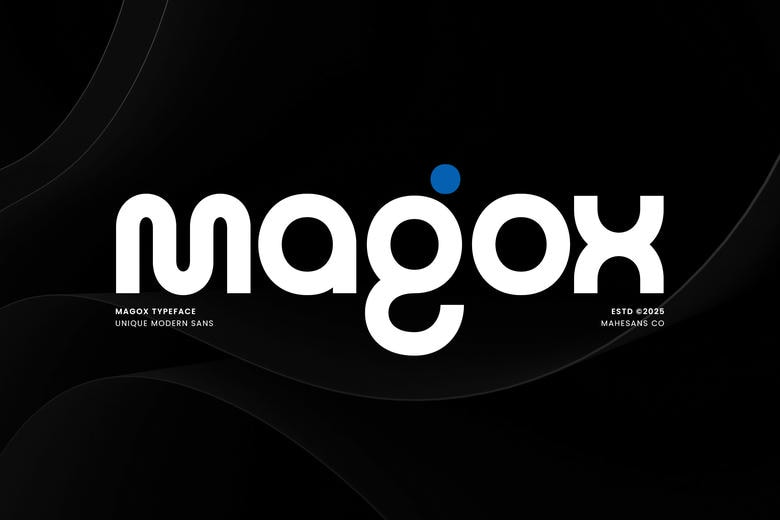
Magox Font
Magox is a contemporary sans serif typeface that is made to seem bold, smooth and confidently contemporary. Magox is a solid structure of clean geometry and warm curves, and it does not create the impression of something hard and cold. This typeface is targeted at the brands, which attach importance to clarity, balance, and modernity. It is very readable through its round shapes and uniform proportions, but there are small details that add some personality to it, unlike generic sans fonts. Being a Magox font, it has a clean but avant-garde appearance that is an appeal to innovation and sophistication.
Combine it with very high contrast photography and lots of white space to make it look like a high end brand that is not only professional, but several years ahead of the curve. Ideal as a branding, logo, headline, packaging, poster, web, and social media image, Magox is easy to adapt in digital and print application. Your typography will sound confident and professional whether you are creating a minimalist identity or a loud modern brand, which is what Magox offers.
Magox Sans Serif Font